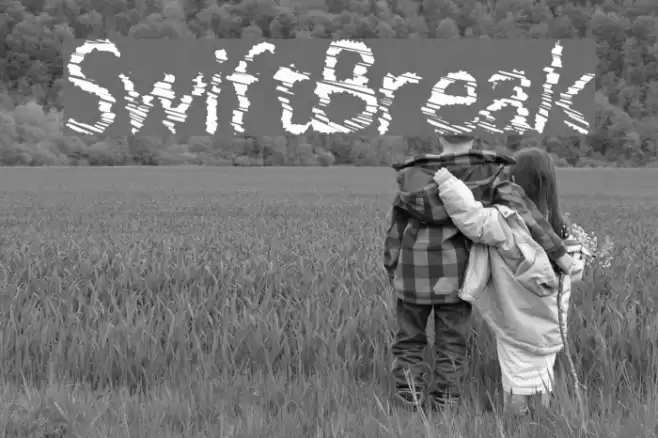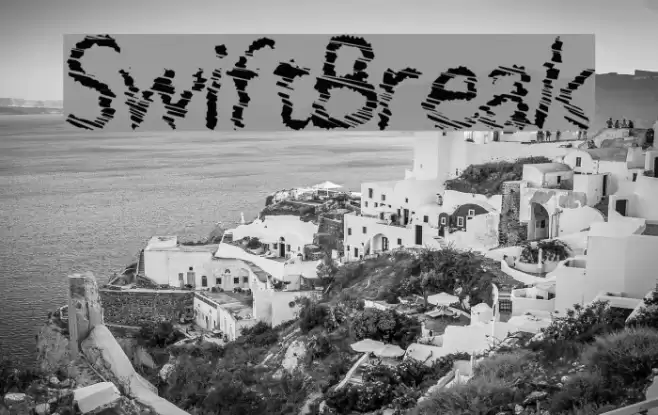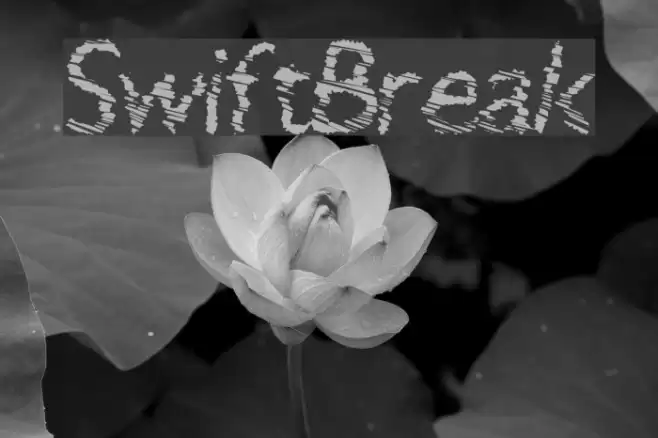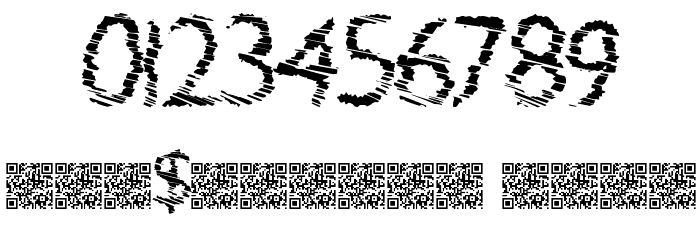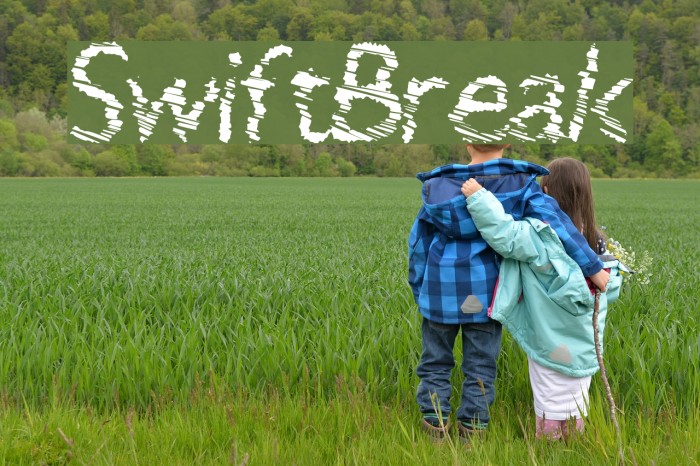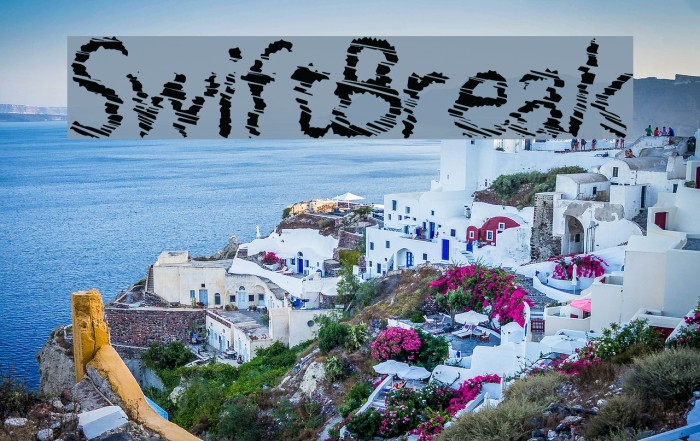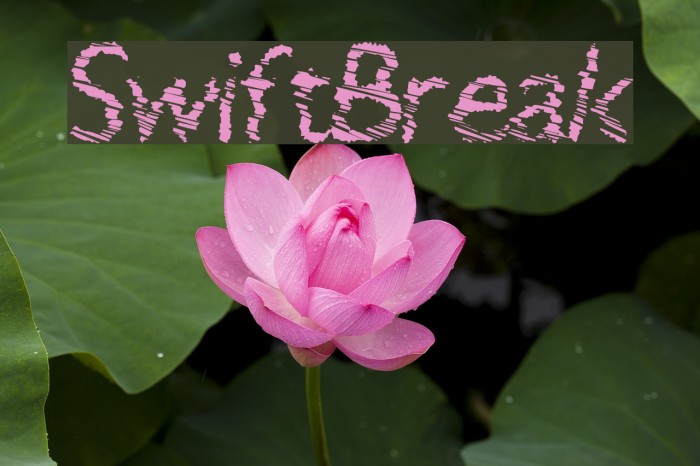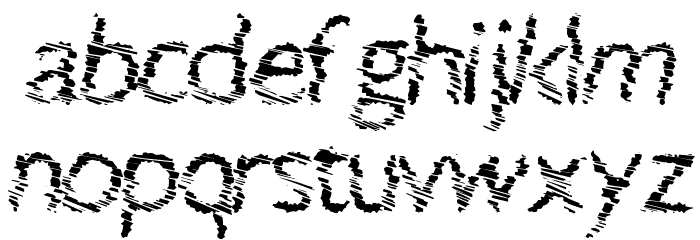
SwiftBreak Font
SwiftBreak Description
This font features a dynamic and energetic style, characterized by its unique, fragmented appearance. Each character seems to be in motion, with strokes that appear to be breaking apart or dissolving. The design gives an impression of speed and disruption, making it stand out as a bold statement. The uppercase and lowercase letters maintain a consistent style, with jagged edges and irregular forms that add to the overall chaotic aesthetic. Numbers and special characters follow the same design principles, ensuring a cohesive look across all elements.
A dynamic, fragmented font with a bold, energetic style from Distorted Eroded fonts.